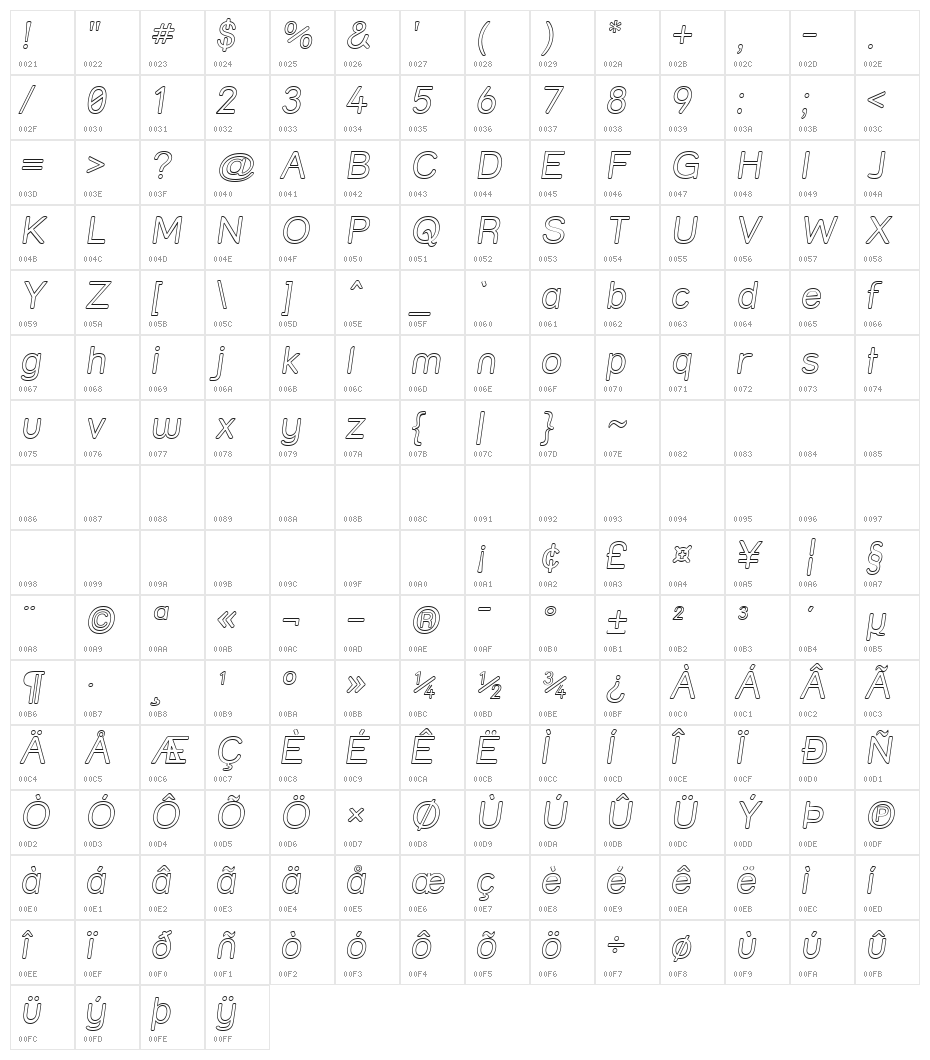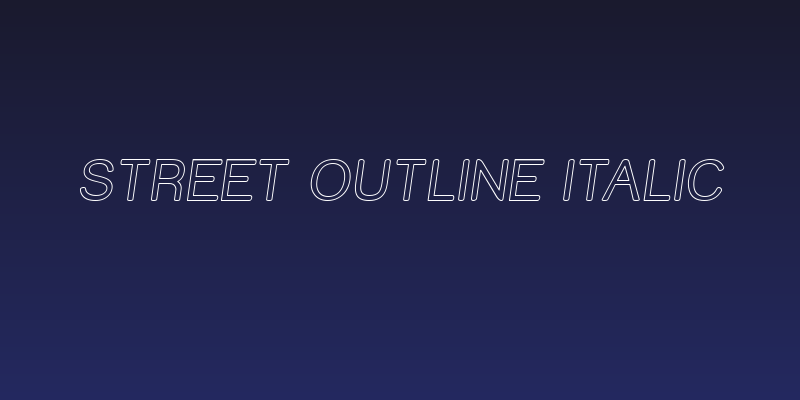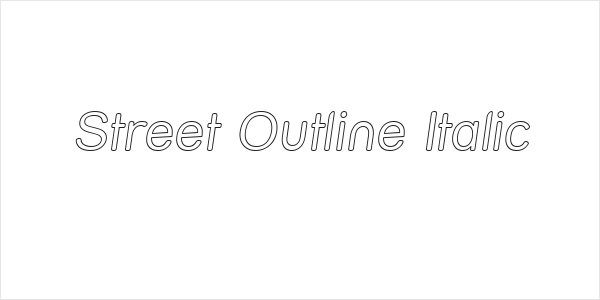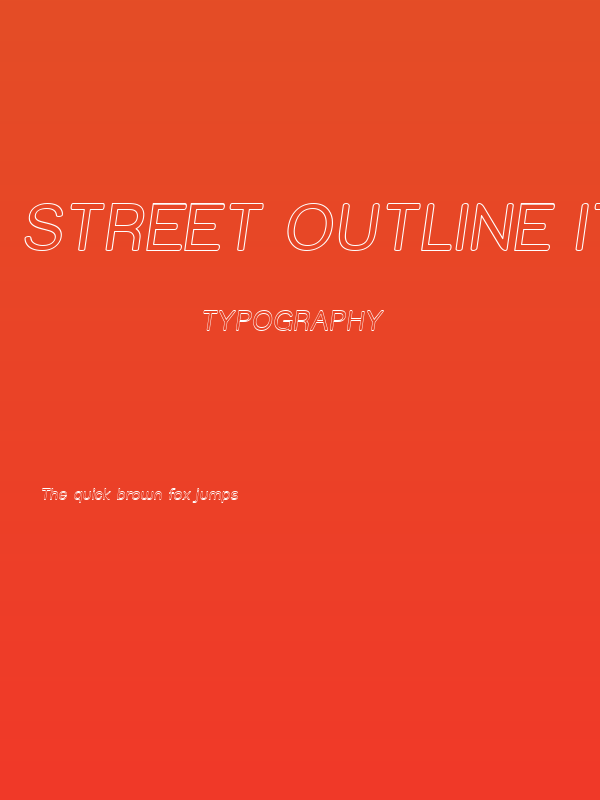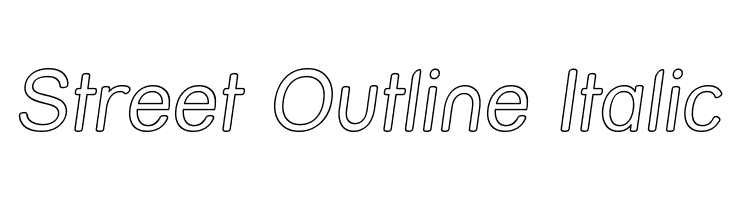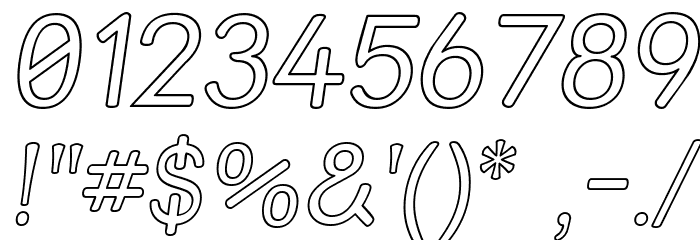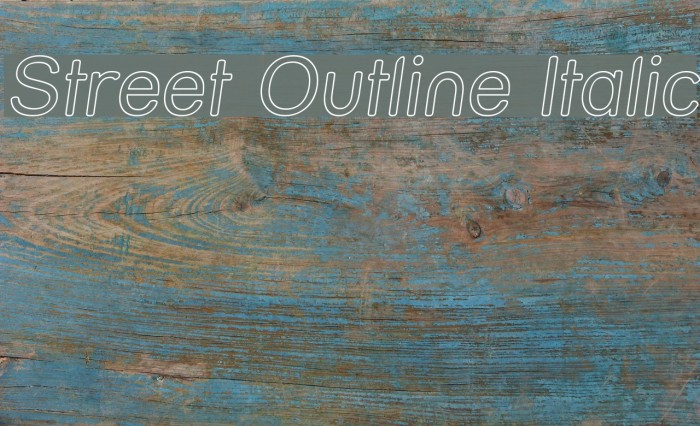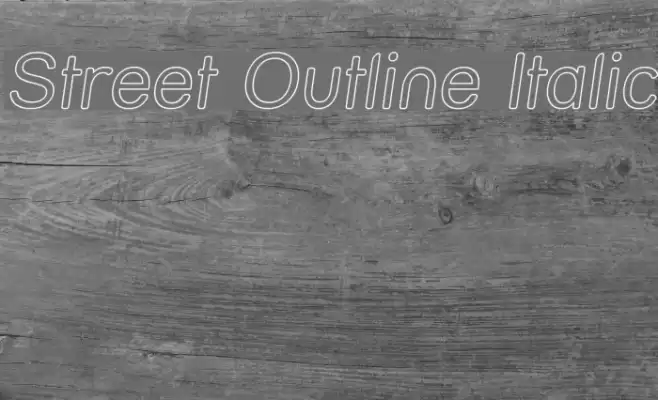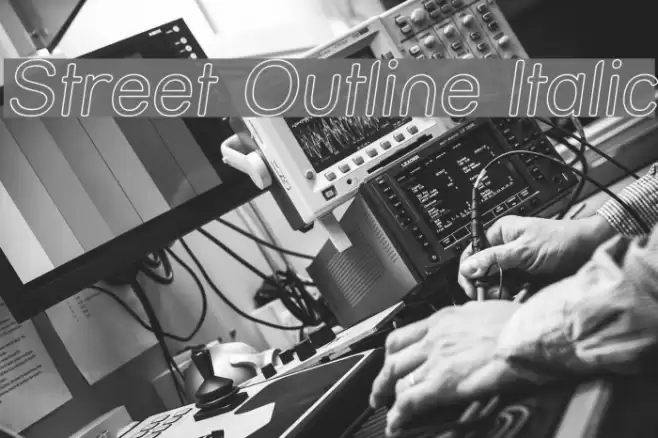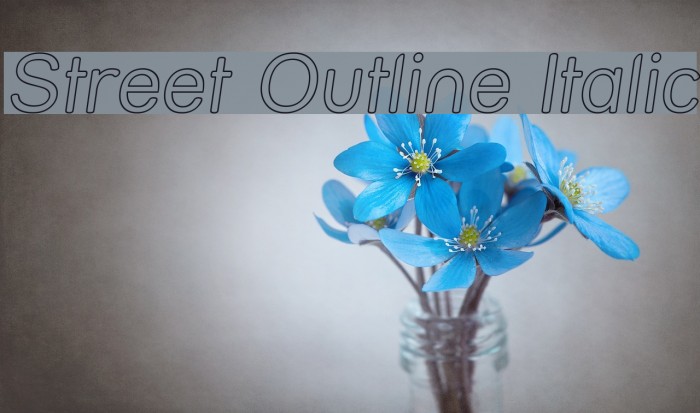
Street Outline Italic Font
Street Outline Italic Description
This font features a modern and sleek outline design with a distinct italic slant, giving it a dynamic and forward-moving appearance. The characters are evenly spaced, maintaining a clean and organized look. The uppercase and lowercase letters are well-proportioned, with rounded edges that soften the overall aesthetic. The numerals and special characters are consistent with the letterforms, ensuring a cohesive style throughout. This font's outline nature makes it ideal for creating eye-catching designs where the text needs to stand out without being overly bold.
| Proposed Projects | Ideal for branding, posters, signage, and any project requiring a modern and stylish touch. |